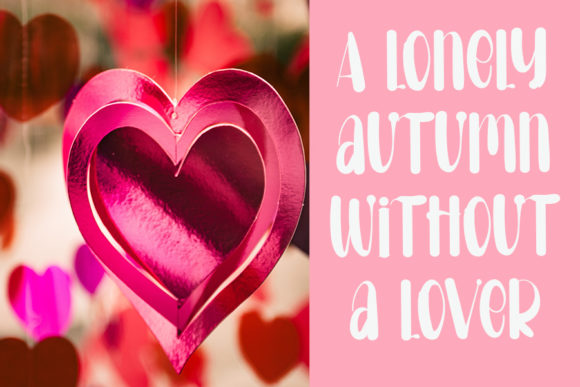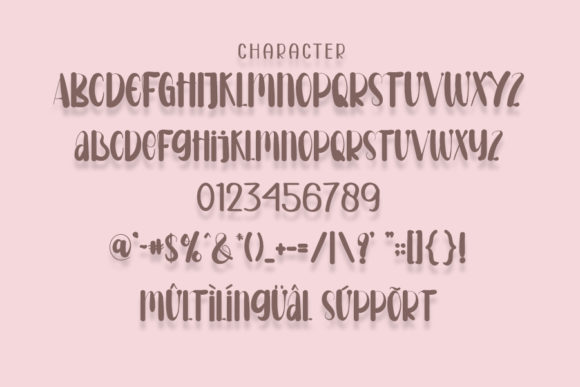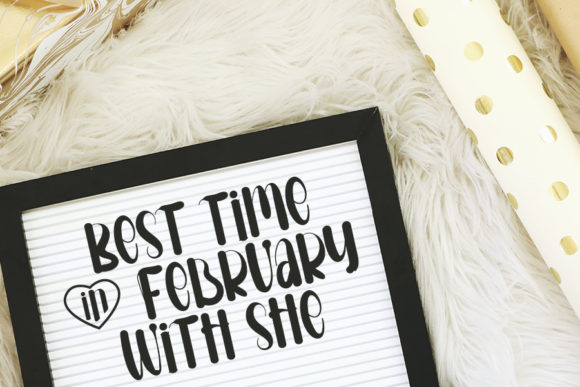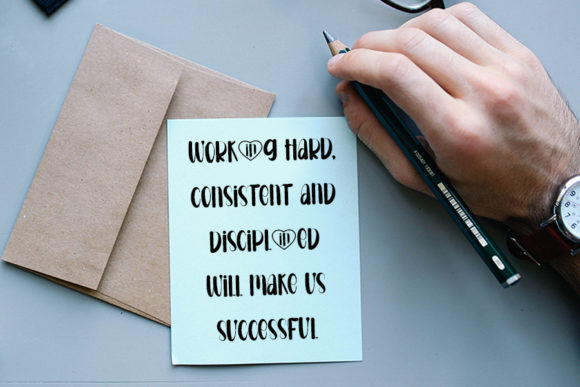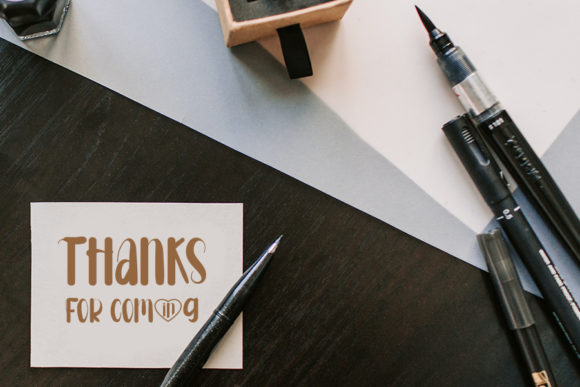
Introduction to Lovers in Memories Font
Lovers In Memories is a cute and charming handwritten font.
Not too thin and not too thick, balanced and varied, this font was designed to enhance the beauty of your projects .
Key Features of Lovers in Memories Font
Why Choose Lovers in Memories Font?
Lovers in Memories Font offers exceptional quality and versatility, making it a valuable addition to your design toolkit. Whether you’re creating for personal projects or commercial use, Lovers in Memories Font delivers professional results.